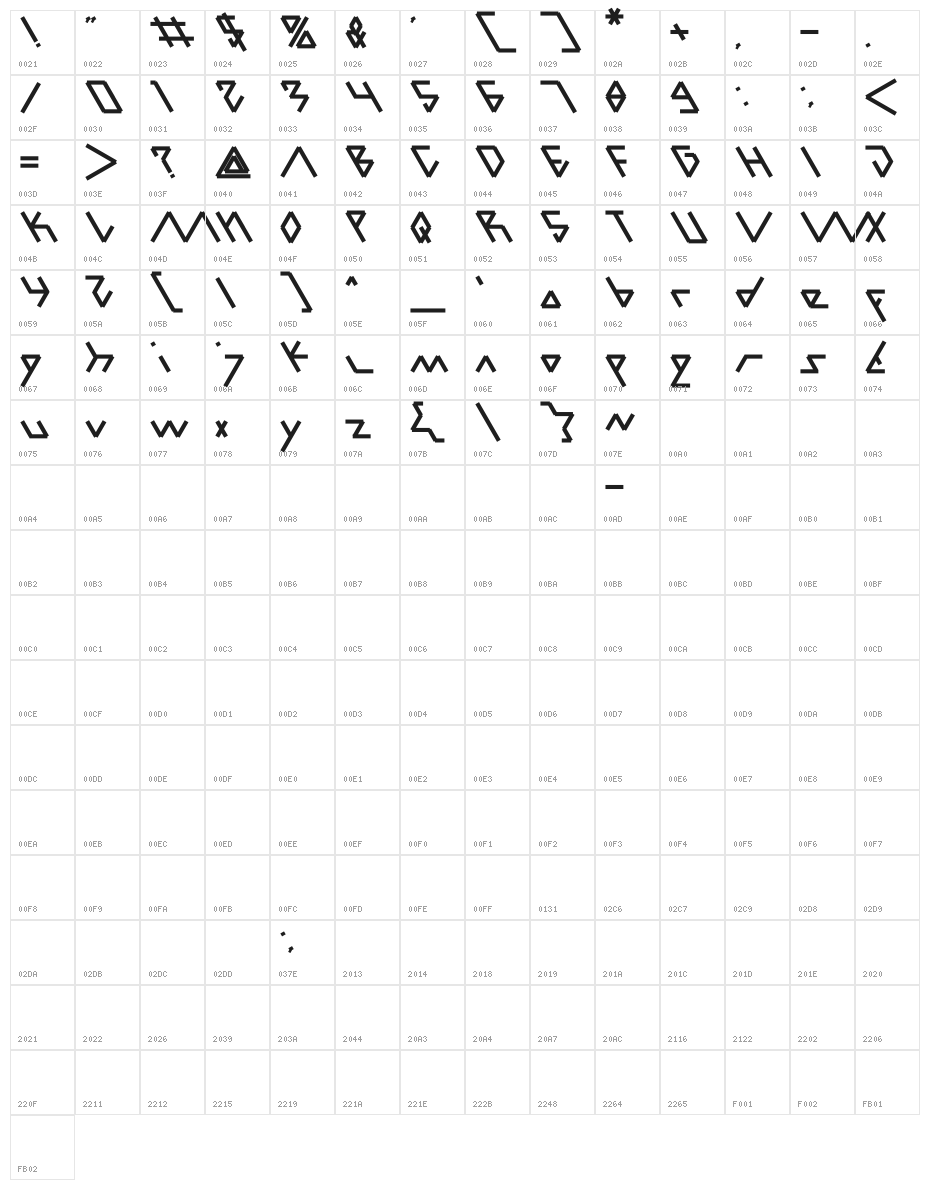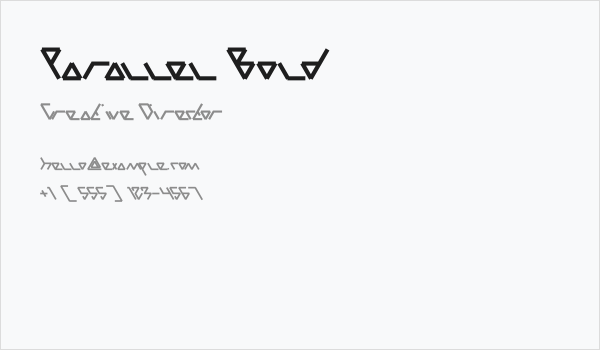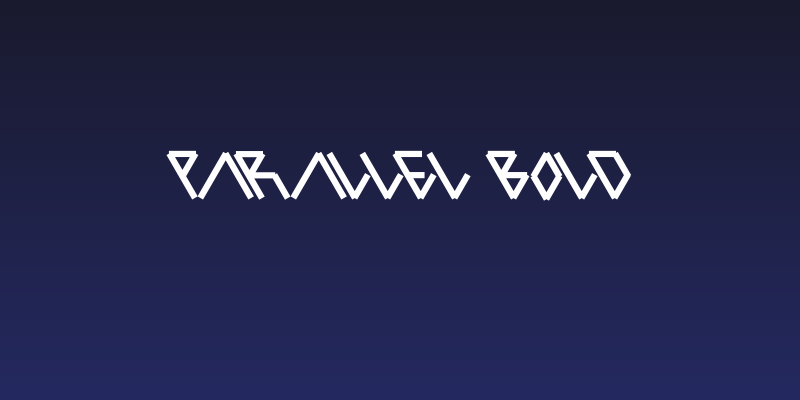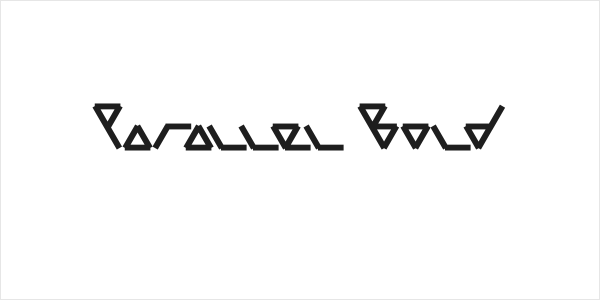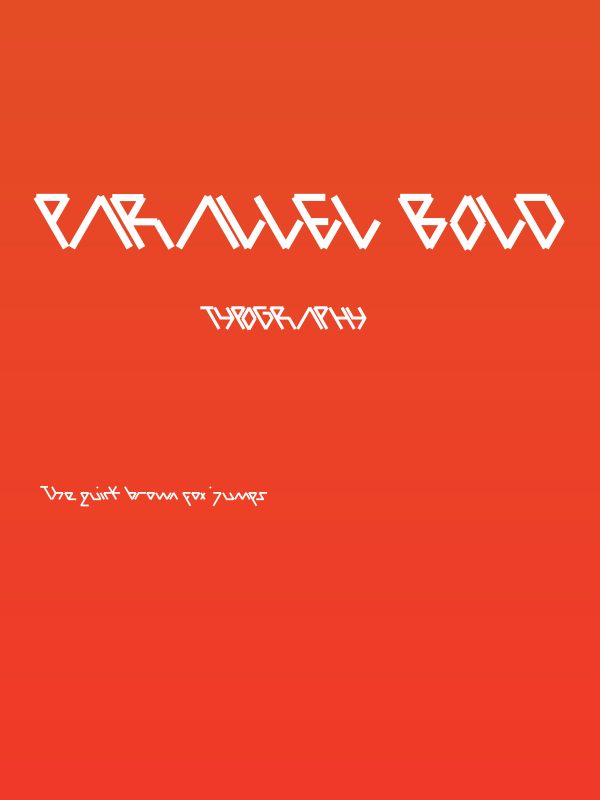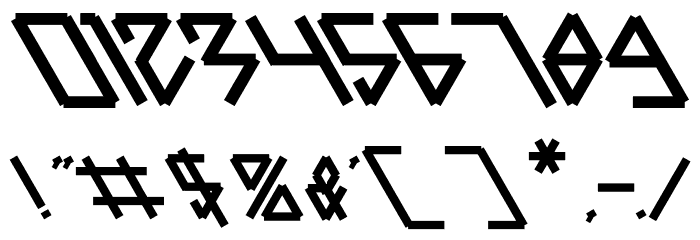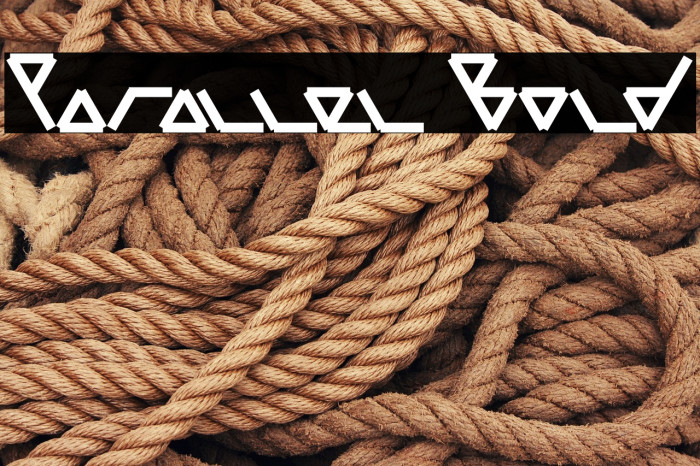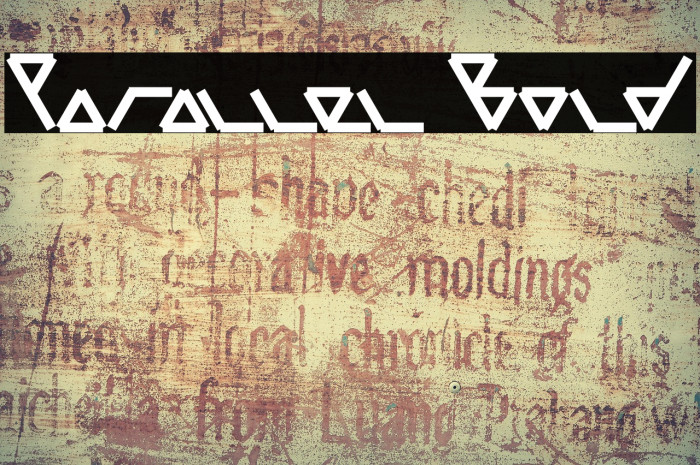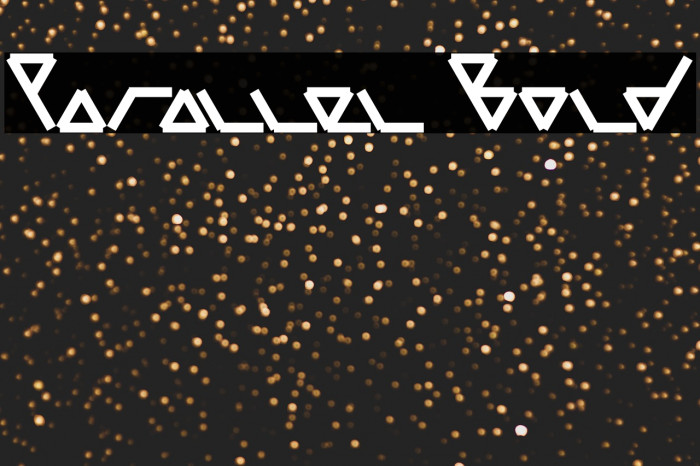
Parallel Bold Font
Parallel Bold Description
This font features a bold, geometric design with sharp angles and a futuristic aesthetic. The characters are constructed with thick, straight lines that form angular shapes, giving it a distinctive and edgy look. The uppercase and lowercase letters maintain a consistent style, with a strong emphasis on symmetry and alignment. Numbers and special characters follow the same angular theme, ensuring a cohesive appearance across all glyphs. The font's unique style makes it stand out, suitable for projects that require a modern and unconventional typeface.